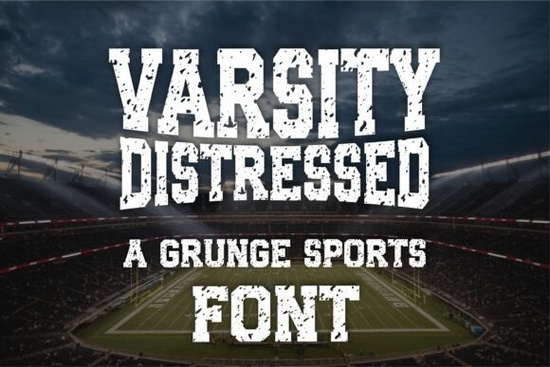
If you're looking for a font that embodies the spirit of classic collegiate sports, the Varsity Distressed Font is a great choice. This bold slab serif typeface with a rugged, grunge texture is perfect for adding a high-energy impact to your designs. Whether you're working on jerseys, t-shirts, team logos, or vintage athletic graphics, this font brings a unique and dynamic feel to your projects.
Why Choose Varsity Distressed Font?
Varsity Distressed Font stands out with its bold and textured appearance, making it ideal for sports branding, DIY crafting, and motivational graphics. Its classic collegiate style is versatile and can be used for various projects, from game-day merch to workout shirts and team banners. The font is designed to work seamlessly with popular design tools like Cricut, Silhouette, Canva, Procreate, and sublimation, ensuring that you can easily integrate it into your creative workflow.
Perfect for Sports Branding
One of the key strengths of the Varsity Distressed Font is its suitability for sports branding. If you're designing for football, baseball, basketball, or gym apparel, this font will give your designs an authentic, high-impact look. The rugged, grunge texture adds a touch of nostalgia, making it perfect for vintage athletic designs. For example, if you're creating a custom jersey for a local sports team, the Varsity Distressed Font can help you achieve a professional and memorable look.
Ideal for DIY Crafting
For crafters and DIY enthusiasts, the Varsity Distressed Font is a fantastic addition to your toolkit. Whether you're making custom t-shirts, mugs, or posters, this font can add a bold and distinctive touch to your creations. Its compatibility with Cricut and Silhouette machines means you can easily cut and apply the font to a variety of materials, from fabric to vinyl. This makes it a versatile choice for all sorts of crafting projects.
Creating Motivational Graphics
Motivational graphics often benefit from strong, impactful fonts, and the Varsity Distressed Font fits the bill perfectly. Whether you're designing a poster for a gym, a motivational quote for social media, or a banner for a sports event, this font can help you convey energy and enthusiasm. The bold, slab serif style combined with the distressed texture creates a powerful visual statement that can inspire and motivate your audience.
Comparison with Other Slab Serif Fonts
While there are many slab serif fonts available, the Varsity Distressed Font offers a unique combination of boldness and texture. Here’s how it compares to some other popular options:
- Summer Varsity Font: This font has a clean, modern look, making it suitable for contemporary designs. If you prefer a more polished and refined appearance, Summer Varsity Font might be a good alternative.
- Campus Font: Campus Font has a more traditional and elegant feel, which is great for formal or academic projects. If you need a font with a classic, timeless appeal, Campus Font is worth considering.
- Jersey Font: Similar to Varsity Distressed, Jersey Font also has a bold, sporty look. However, it lacks the distressed texture, making it a cleaner option for those who prefer a smoother finish. You can find Jersey Font for a different take on the sports theme.
Where to Use Varsity Distressed Font
The Varsity Distressed Font is incredibly versatile and can be used in a wide range of projects. Here are some ideas to get you started:
- Sports Apparel: Create custom jerseys, t-shirts, and hats for your favorite teams or sports events.
- Team Logos: Design eye-catching logos for sports teams, clubs, or fitness groups.
- Posters and Banners: Make motivational posters for gyms, sports events, or school spirit days.
- DIY Crafts: Use the font for custom mugs, keychains, and other personalized items.
- Sublimation Projects: Apply the font to sublimation prints for a variety of surfaces, including fabric, metal, and ceramic.
Tips for Using Varsity Distressed Font
To get the most out of the Varsity Distressed Font, here are a few tips:
- Combine with Clean Fonts: Pair the Varsity Distressed Font with a clean, sans-serif font to create a balanced and visually appealing design.
- Use High-Contrast Colors: To make the text stand out, use high-contrast color combinations, such as white on black or vice versa.
- Experiment with Textures: Add additional textures or effects to complement the distressed look of the font, but be careful not to overdo it.
- Test on Different Materials: Before finalizing your project, test the font on different materials to ensure it looks as intended.